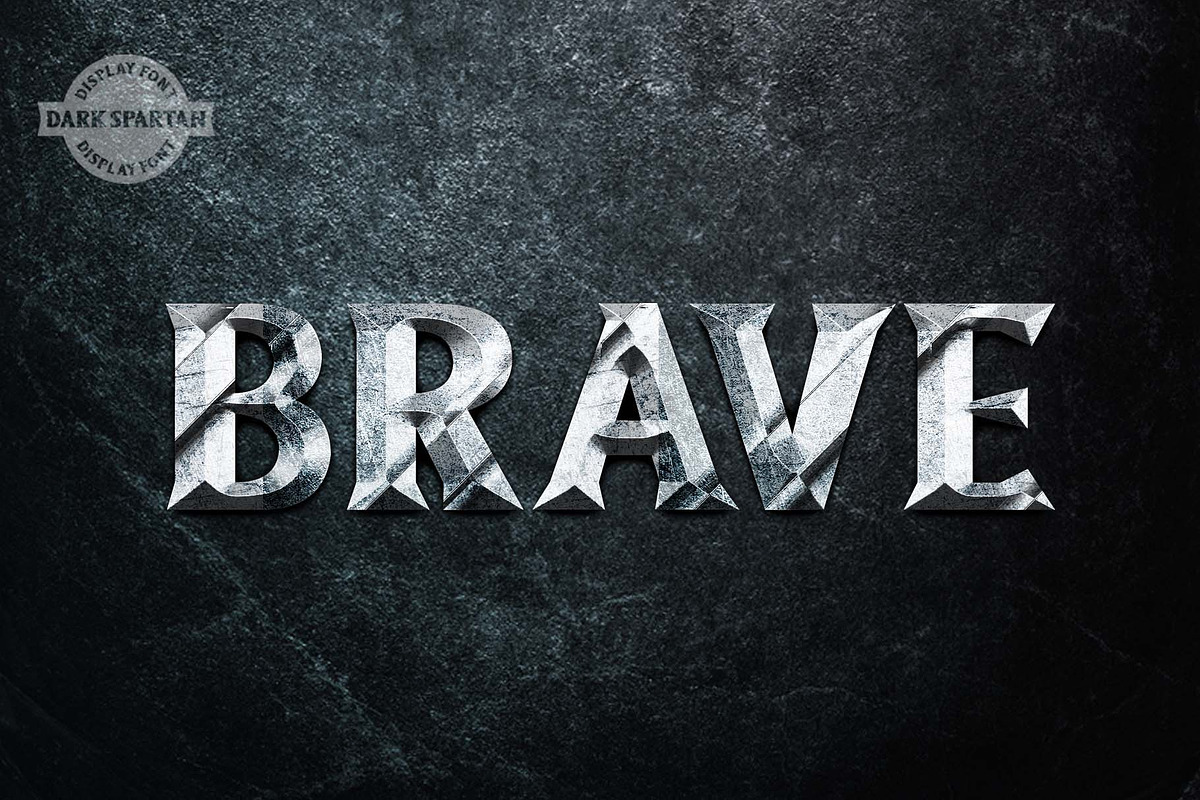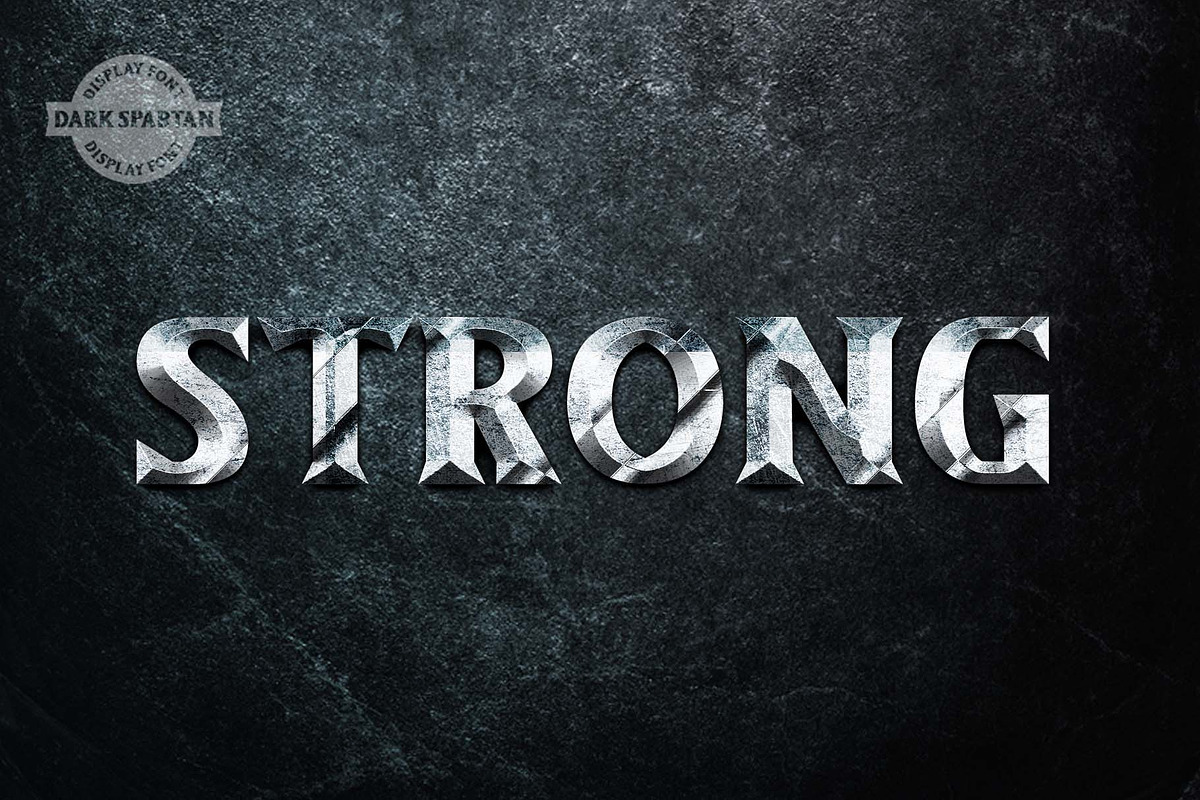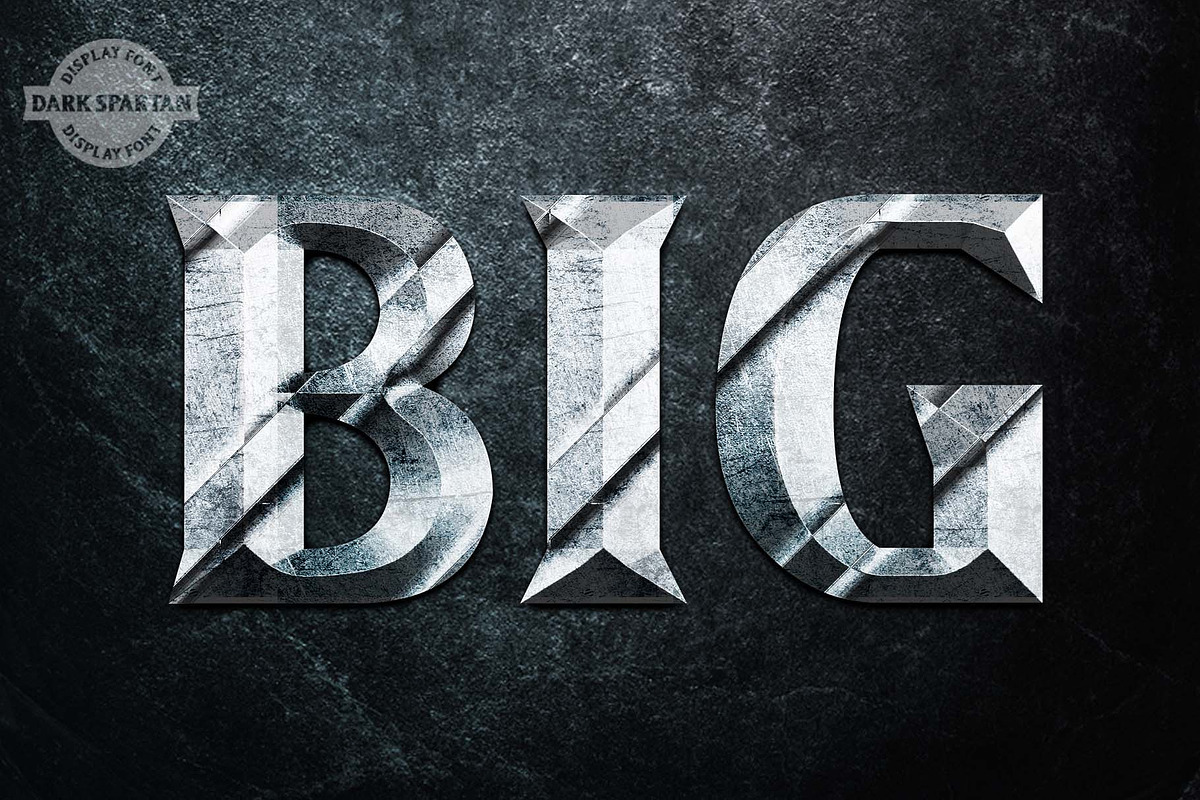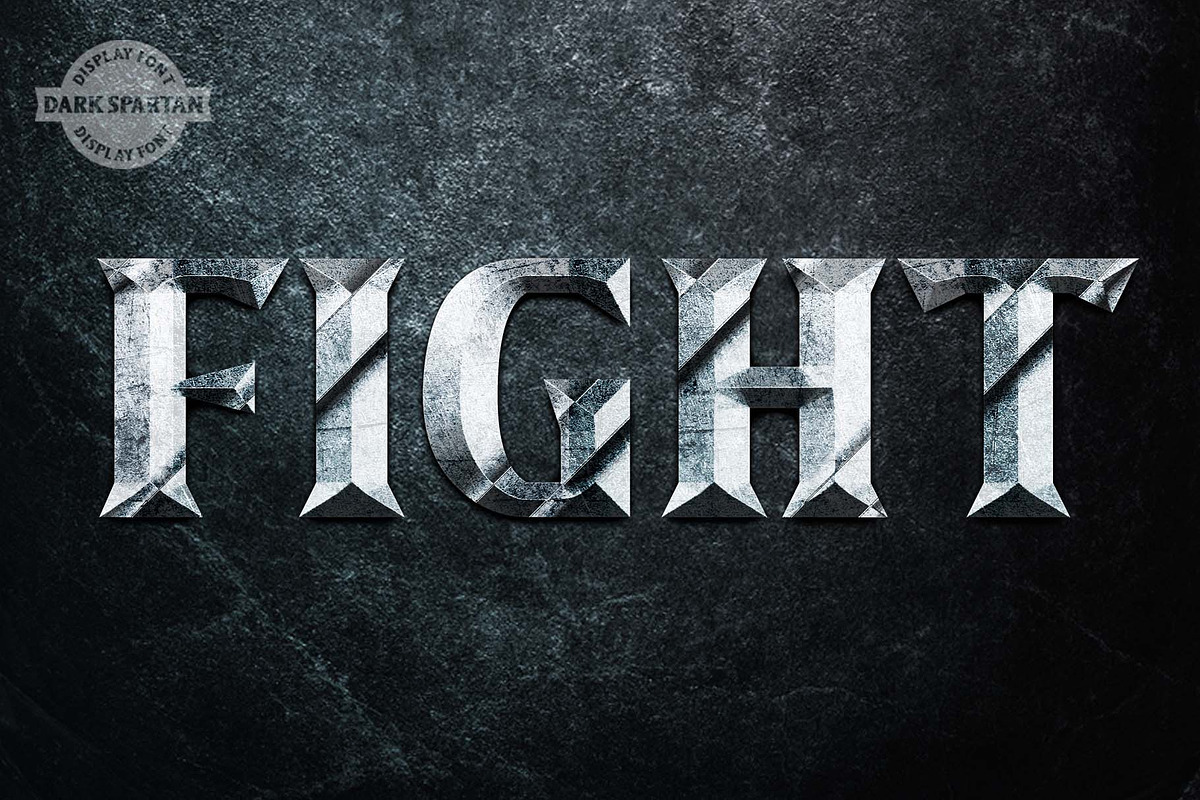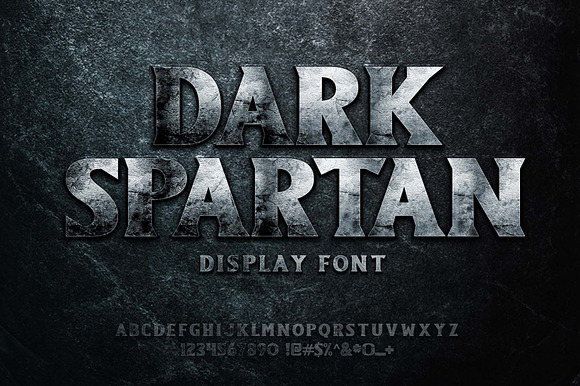
Dark Spartan Display Font
Here we have a strong, eye-catching, awesome and powerful dark spartan display font for sale that will fit well in any great gaming clan, eSports team, YouTube channel, Twitch channel or gaming stream brand.
Dark Spartan Display Font by herulogo fits naturally into Branding, posters, packaging, typography.